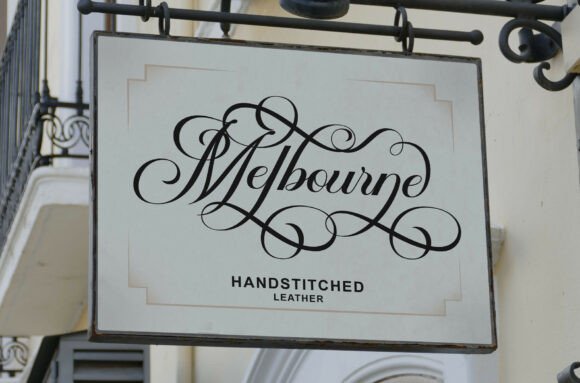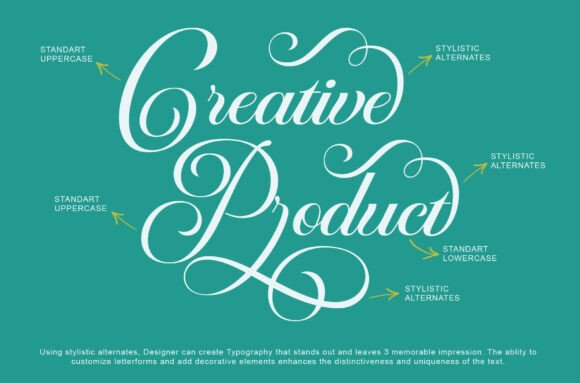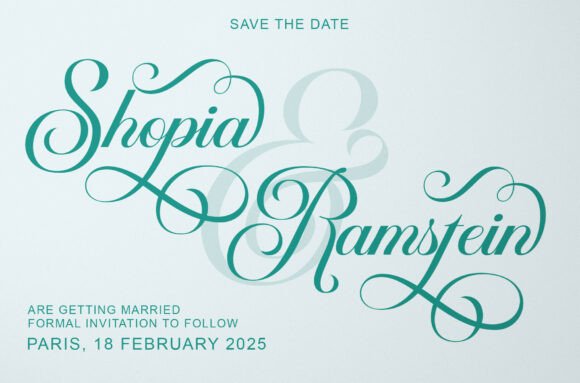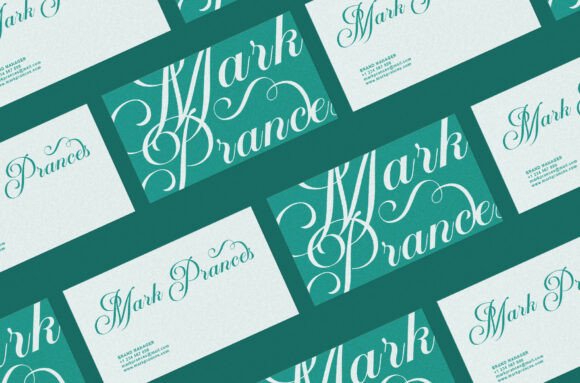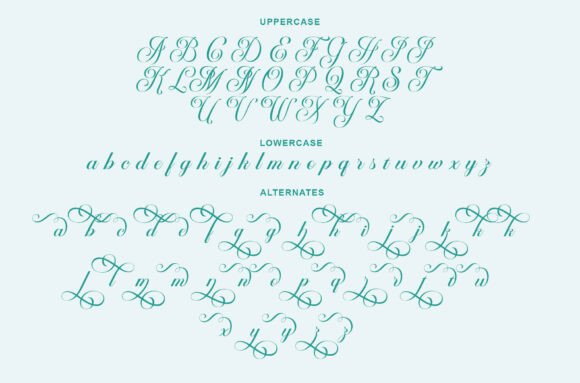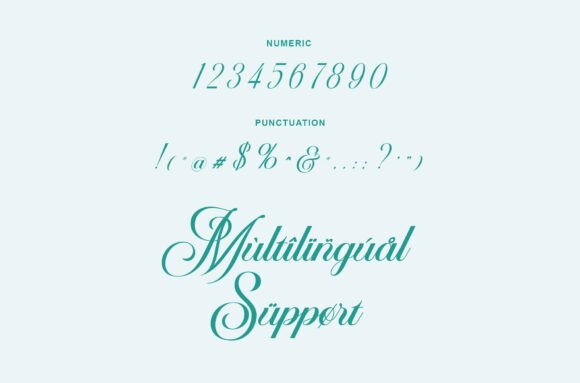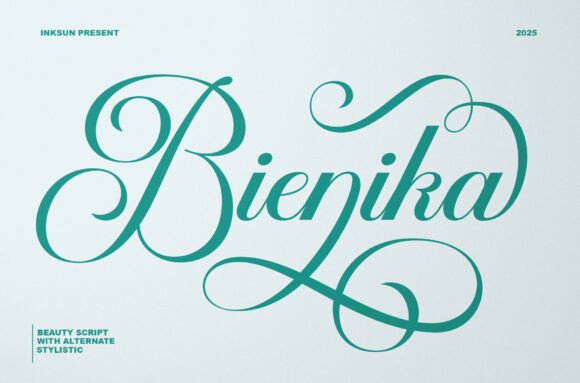
Introducing Bienika Font: A Timeless Elegance Script Typeface
Are you a designer or crafter looking for a font that exudes sophistication and elegance? Look no further than Bienika Font, a beautiful script typeface that combines fluid, calligraphic strokes with a modern, artistic flair. In this article, we’ll dive into the features and benefits of Bienika Font, and explore how it can elevate your design projects.
The Beauty of Bienika Font
Bienika Font is defined by its graceful curves and high-contrast lines, which give it a timeless elegance and sophisticated charm. The font’s fluid, calligraphic strokes evoke a sense of movement and fluidity, making it perfect for designs that require a touch of elegance and refinement. Whether you’re working on a book, magazine, logo, or branding project, Bienika Font is sure to impress.
Alternate Stylistics: A Standout Feature
One of the standout features of Bienika Font is its alternate stylistics, which offer dramatic swashes and intricate flourishes. These stylistics allow for highly customized and decorative typographic layouts, giving you the flexibility to create unique and eye-catching designs. With Bienika Font, you can add a touch of drama and flair to your designs, making them stand out from the crowd.
Versatility and Functionality
Bienika Font is a versatile font that can be used for a wide range of projects, including:
- Books and magazines
- Photography and quotes
- Blog headers and posters
- Advertisements and marketing materials
The font features uppercase and lowercase letters, numerals, and functional multilingual characters, making it a practical choice for designers who need to work with different languages and scripts.
- Uppercase and lowercase letters
- Numerals and functional multilingual characters
- Stylistic alternates and swashes
Why Choose Bienika Font?
So why choose Bienika Font for your design projects? Here are just a few reasons:
- Elegance and sophistication: Bienika Font exudes a sense of timeless elegance and sophisticated charm, making it perfect for designs that require a touch of refinement.
- Versatility: The font can be used for a wide range of projects, from books and magazines to logos and branding.
- Customization: The font’s alternate stylistics and swashes allow for highly customized and decorative typographic layouts.
- Functionality: The font features a range of functional characters, including uppercase and lowercase letters, numerals, and multilingual characters.
In conclusion, Bienika Font is a beautiful script typeface that offers a unique combination of elegance, sophistication, and versatility. With its fluid, calligraphic strokes, high-contrast lines, and alternate stylistics, this font is perfect for designers and crafters who need to create stunning designs that stand out from the crowd. Whether you’re working on a book, magazine, logo, or branding project, Bienika Font is sure to impress.